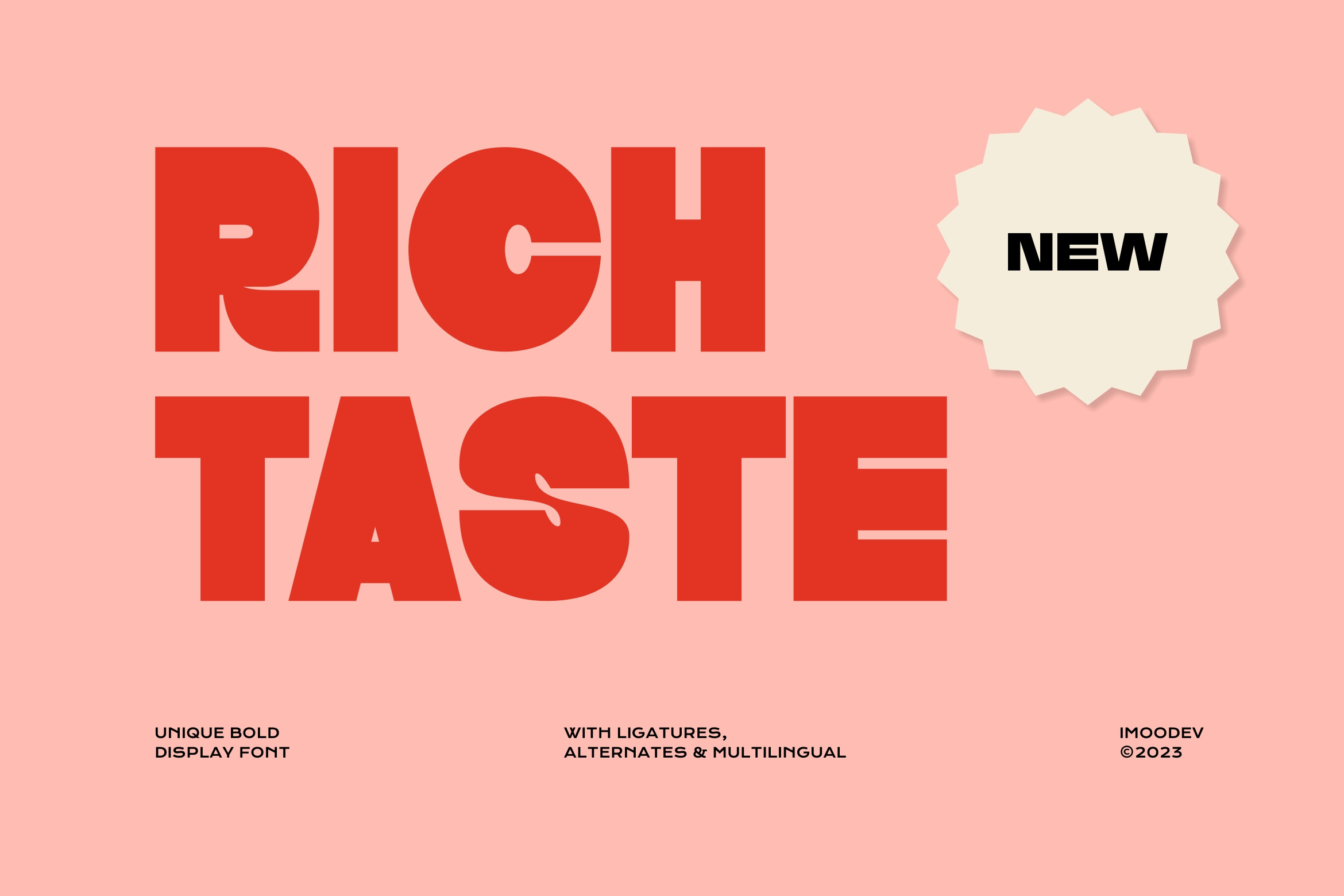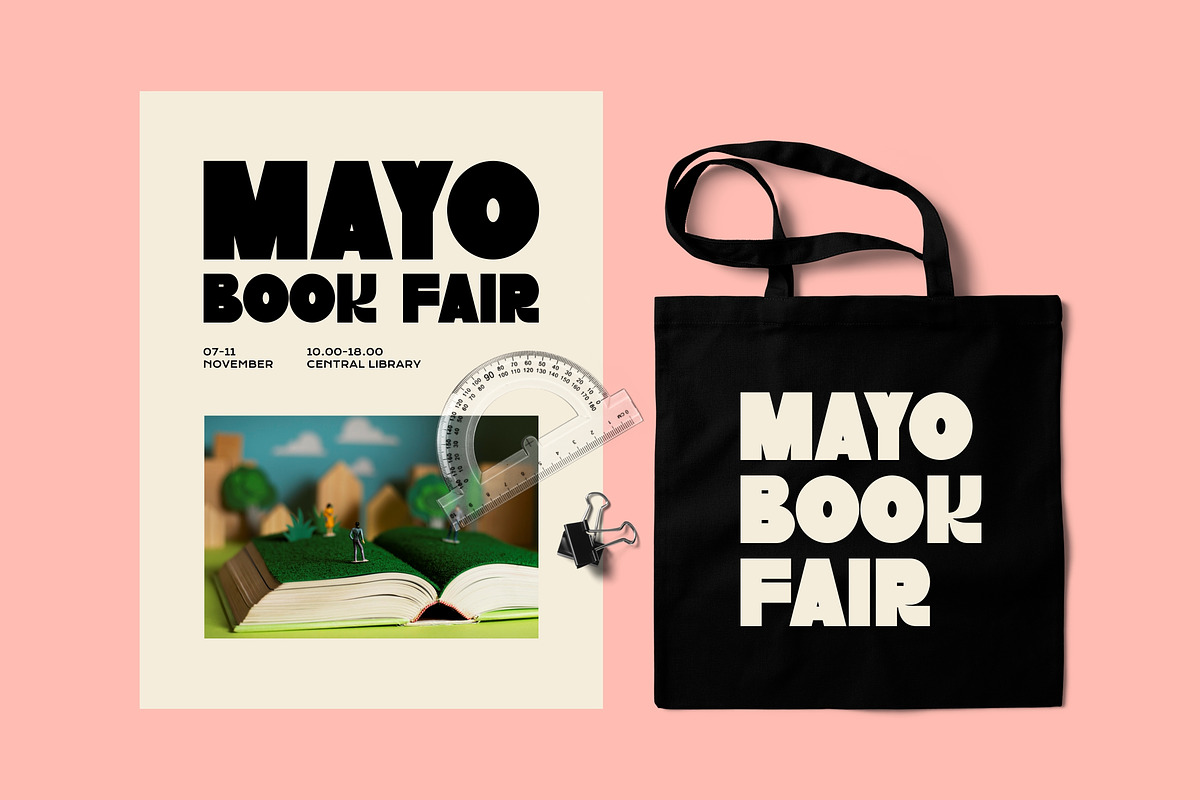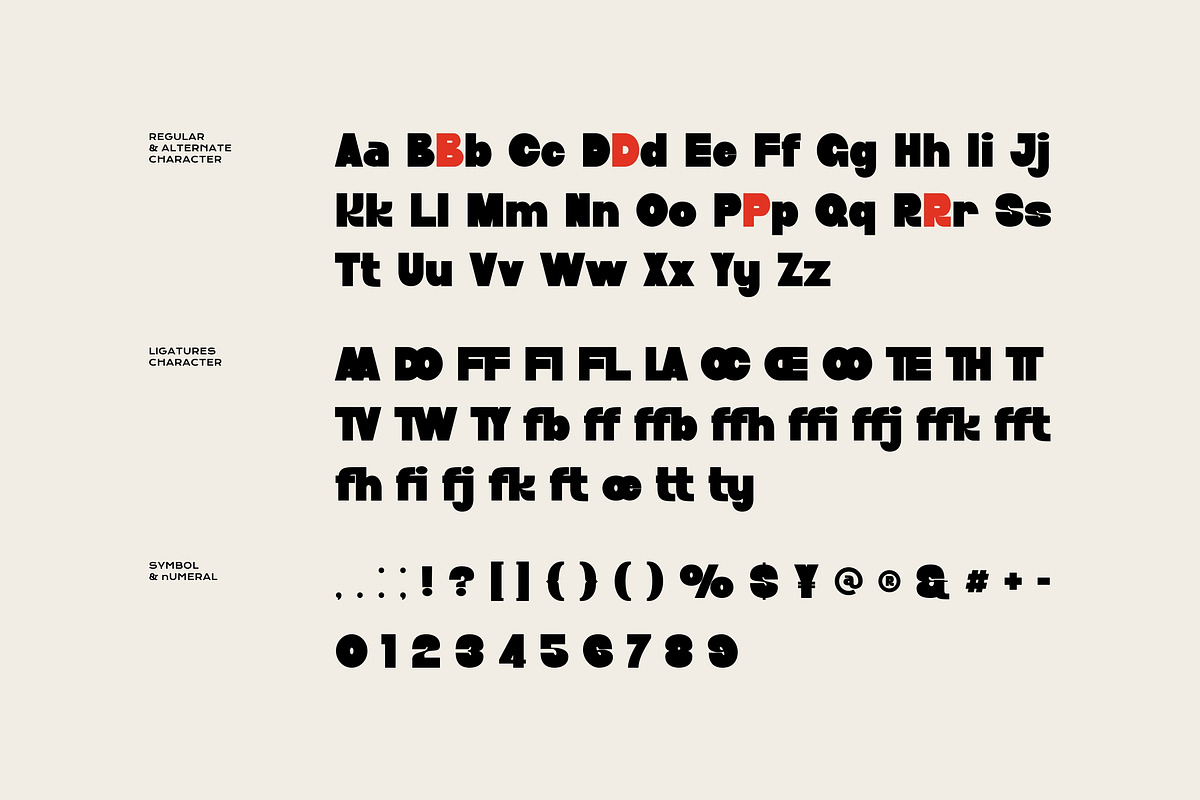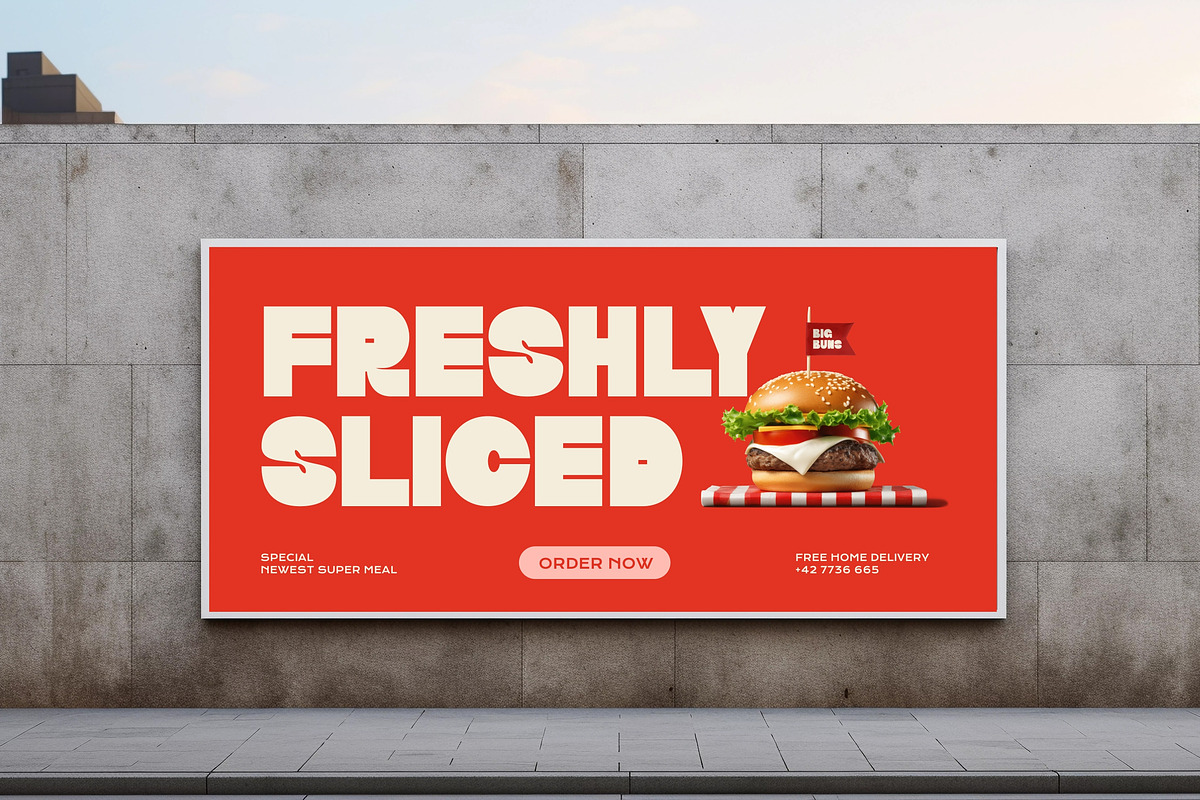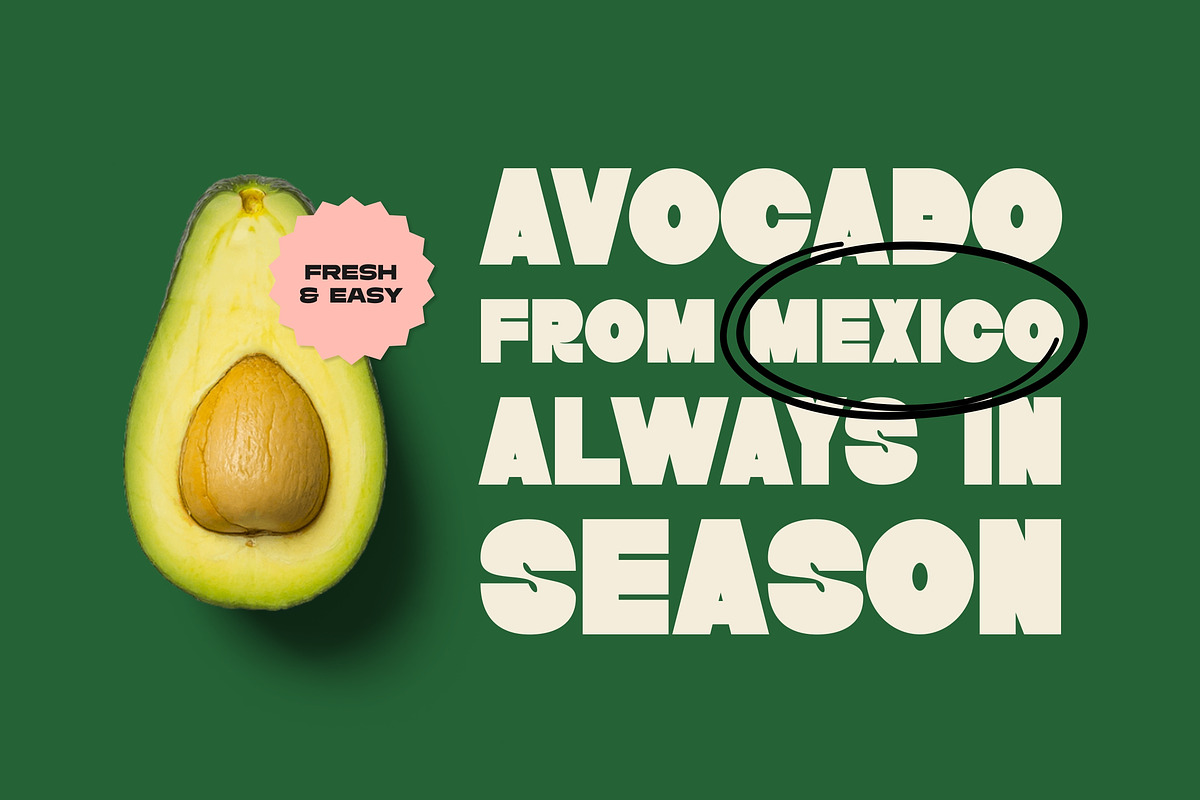
Rich Taste - Bold Display Font
The Rich Taste font is a bold and charismatic display typeface characterized by its thick, blocky shapes and playful, rounded corners. This font effortlessly merges retro vibes with a modern aesthetic. Its powerful visual presence makes it perfect for headlines, posters, branding for food products, event promotions, and packaging designs that aim for maximum impact with a stylish twist.